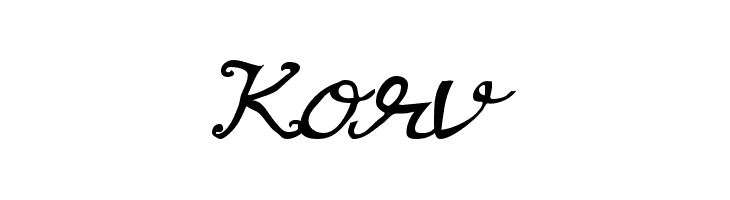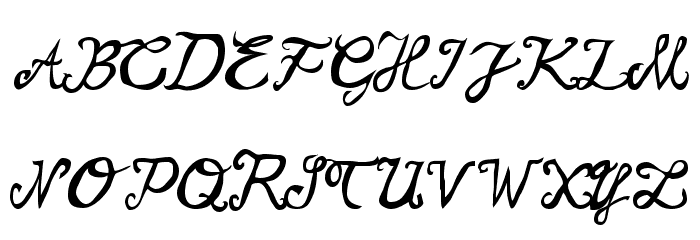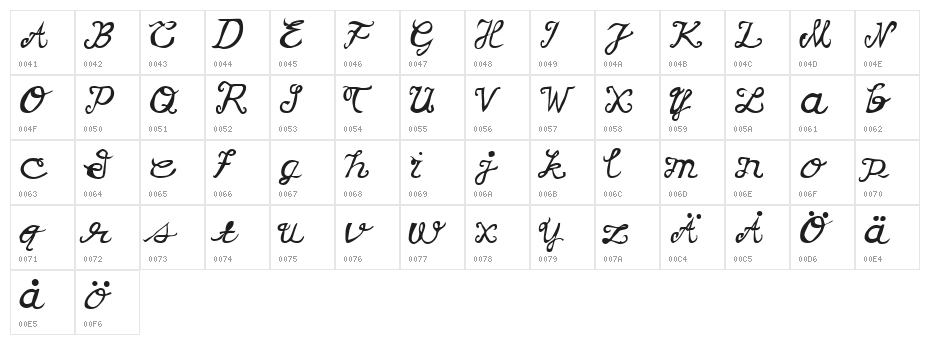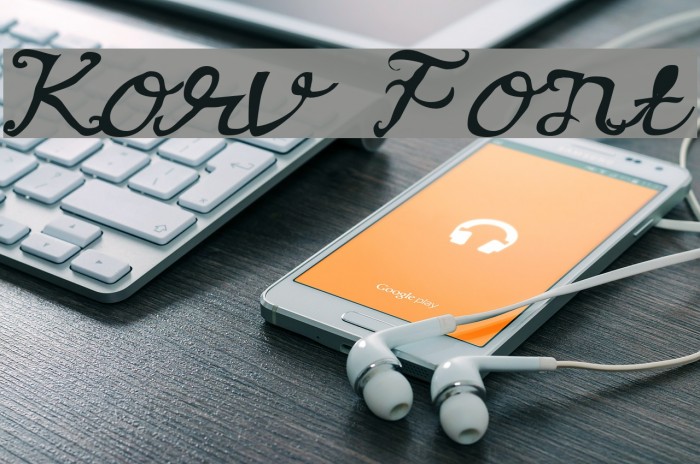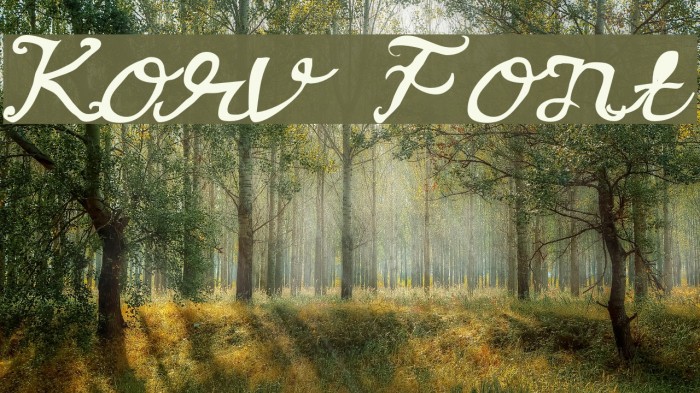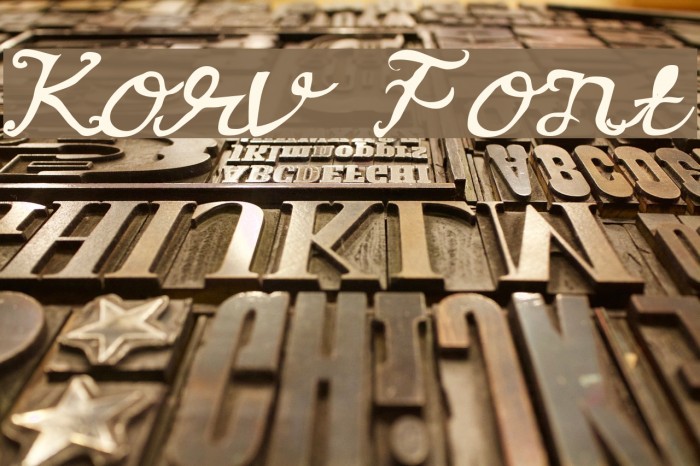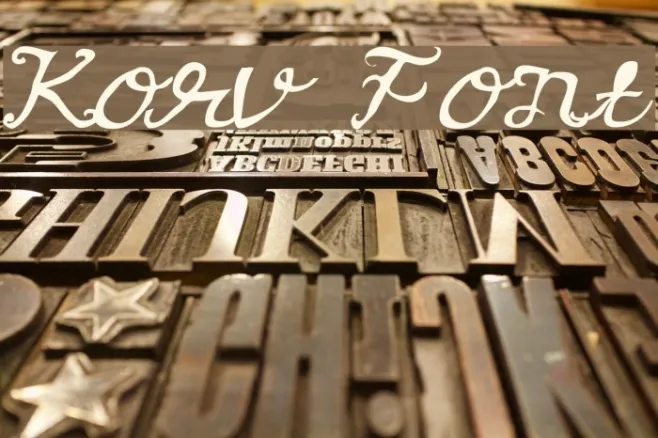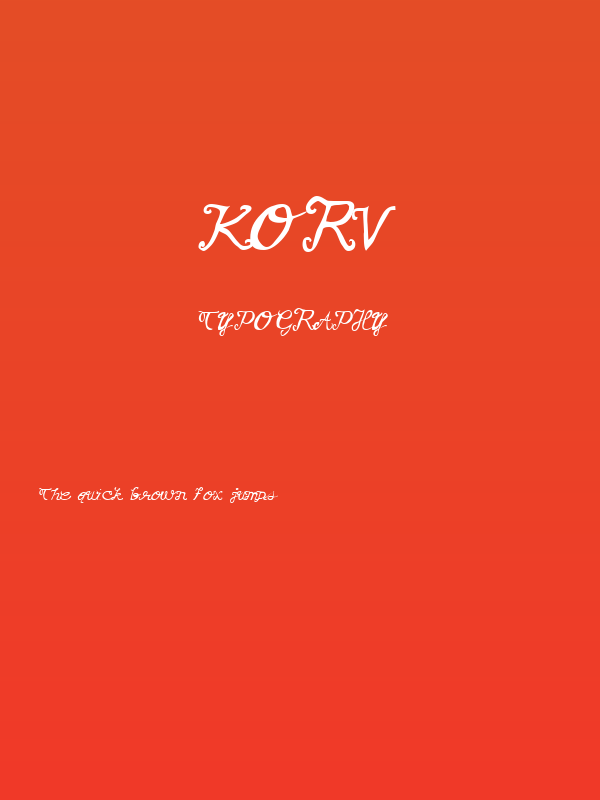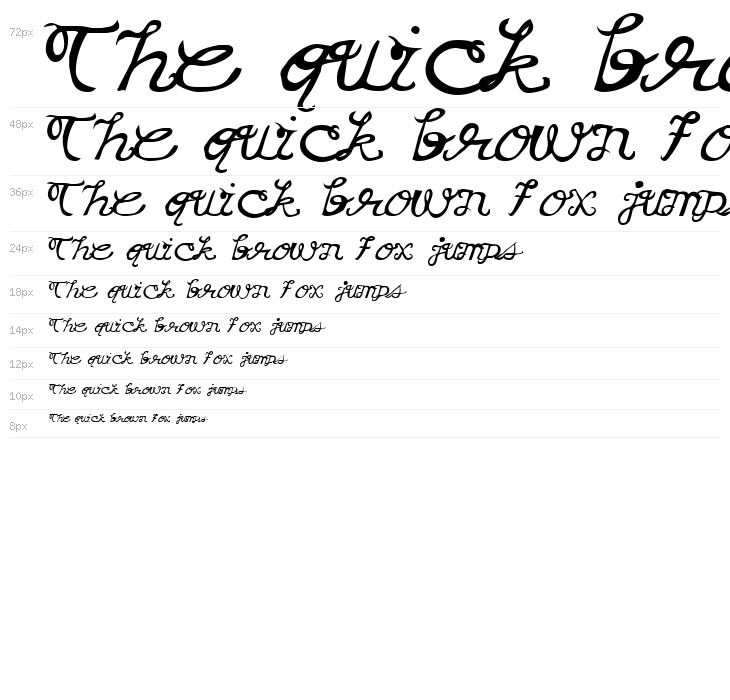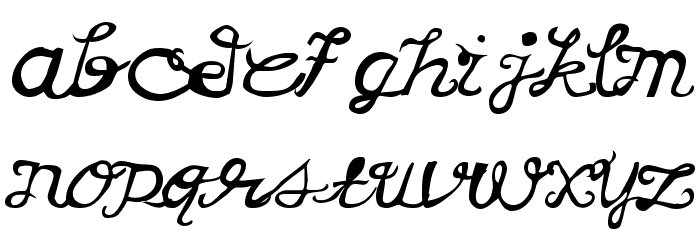
Korv Font
Korv Description
This font features a decorative and elegant script style, characterized by its flowing, cursive letterforms. The uppercase letters exhibit intricate loops and flourishes, adding a sense of sophistication and artistry. The lowercase letters maintain a consistent style, with smooth connections between characters, enhancing readability while preserving the decorative nature. The numerals and special characters are designed to match the overall aesthetic, ensuring a cohesive look across all text elements. This font is ideal for projects that require a touch of elegance and creativity.
Use CaseLogos, Invitations, Decorative text
Proposed ProjectsIdeal for wedding invitations, greeting cards, branding, and elegant packaging designs.